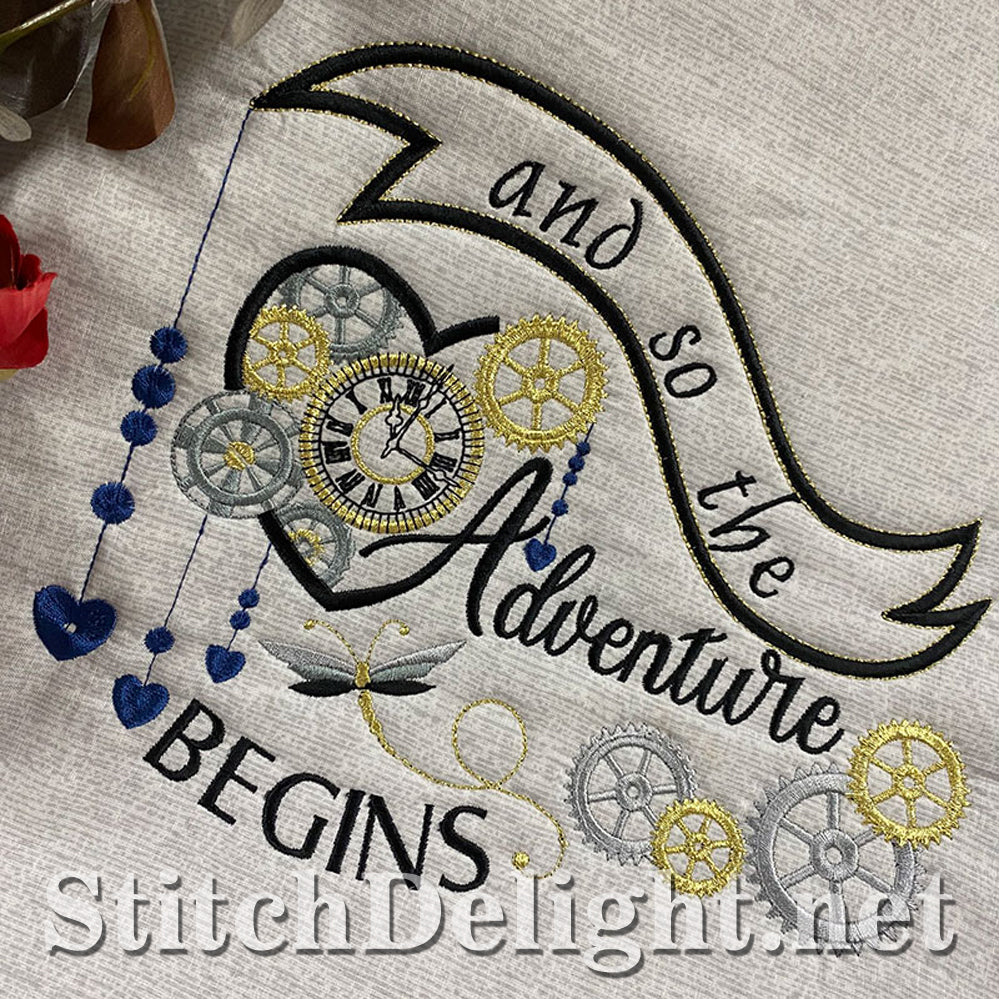
SDS1562 Handwriting Font
Give your project that personal touch with this handwriten font, included witht his set is the BX format for use with Embrilliance Software. The font has an average height of just 0.8" making it ideal for sentances and quotes alike, would even work well to stitch names on garments.